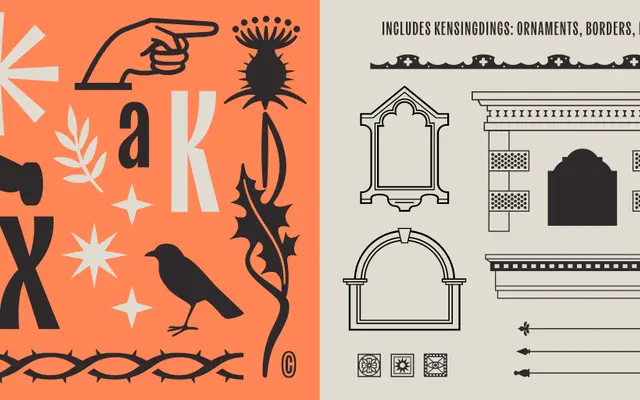
Kensington
A compressed sans serif in five weights designed by Jennifer Hood, drawing on the dense architectural variety of West London's Kensington district.
All ten styles are compressed cuts, running from Regular to Black with matching italics, and the family leans into eccentricity through unexpected letterform details in the 'x', 'g' and 'k'. Ornamental dingbats branded as Kensingdings extend its usefulness into decorative work, alongside architectural borders, cartouches and floral patterns. Broad Latin language support and OpenType features including stylistic alternates, fractions and tabular figures make it practical beyond display use.
A narrow, compressed sans serif across five weights with italics, described by the foundry as eclectic and quirky, drawing on Victorian and ornate architectural references rather than strict grotesque geometry.